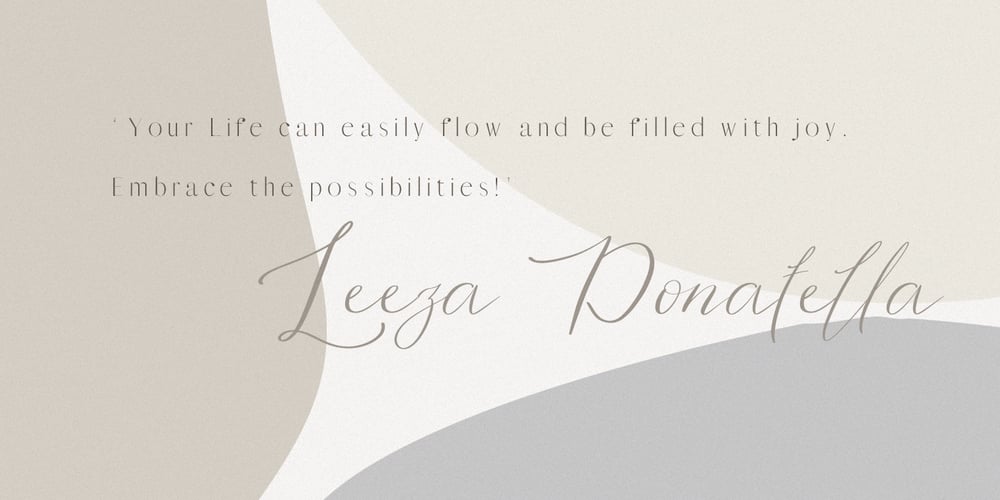
Morning Mood Font Family was designed by Tanya Amos and published by Tanincreate. Morning Mood contains 1 styles and family package options. Morning Mood Script is a handwritten font reflecting calligraphy lettering. It includes numbers, punctuation, alternates, ligatures, supports other languages. It is perfect for adding a hand lettered style to your stationery, headlines, branding and wedding invitation.